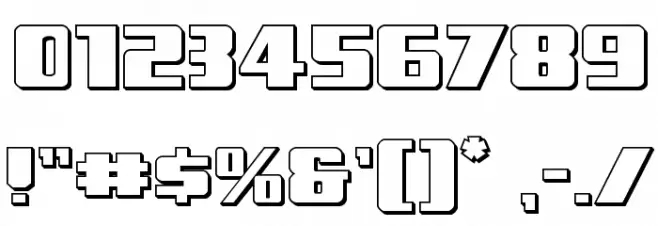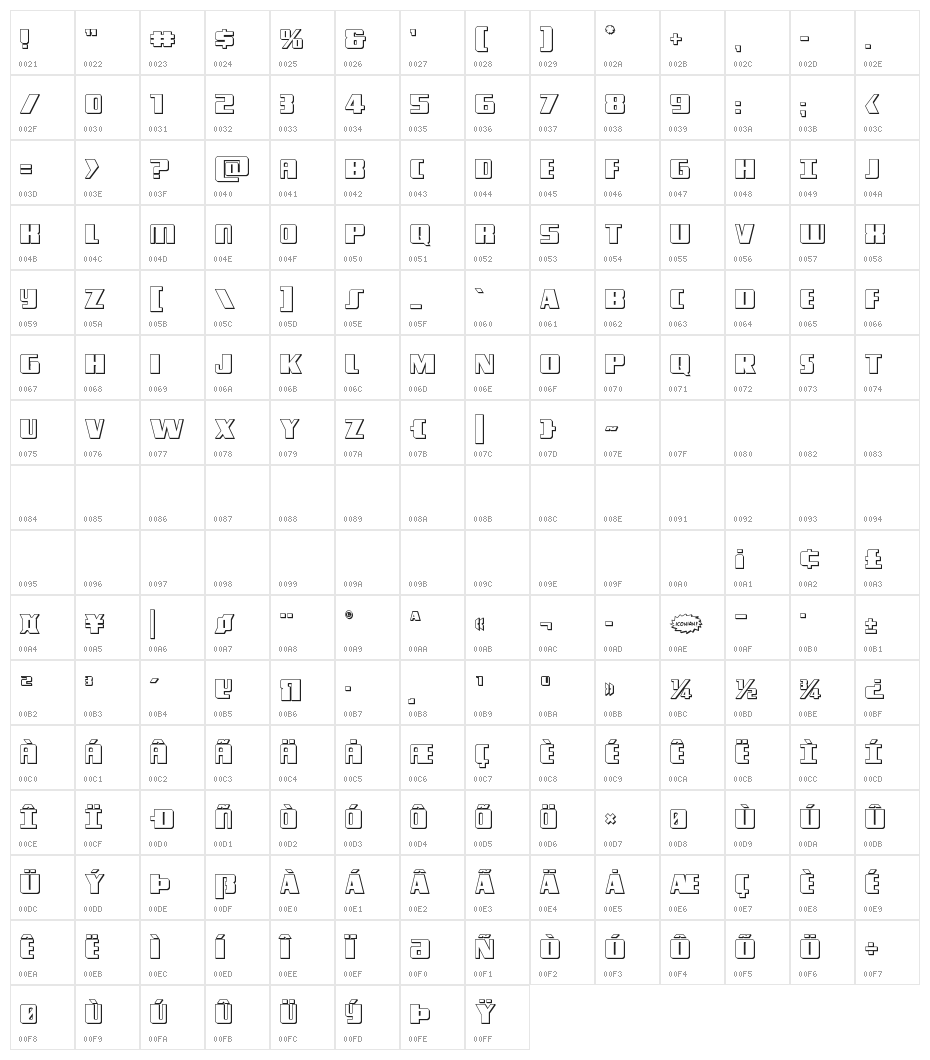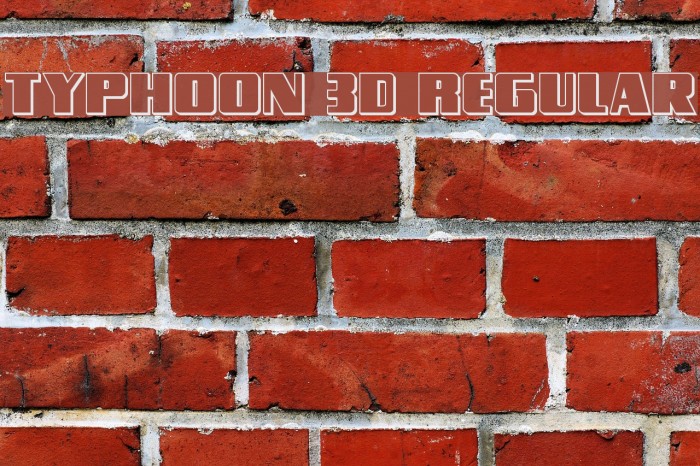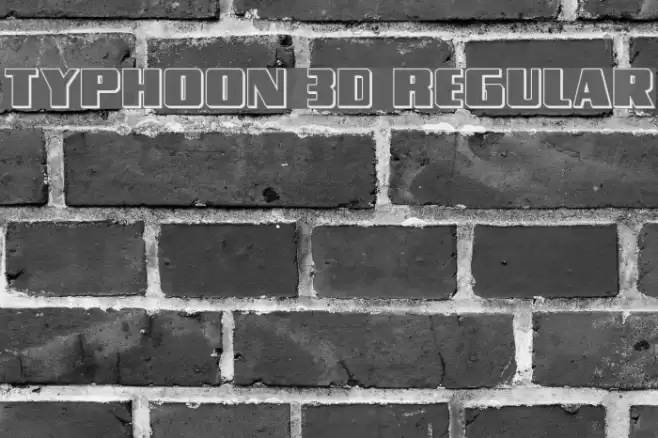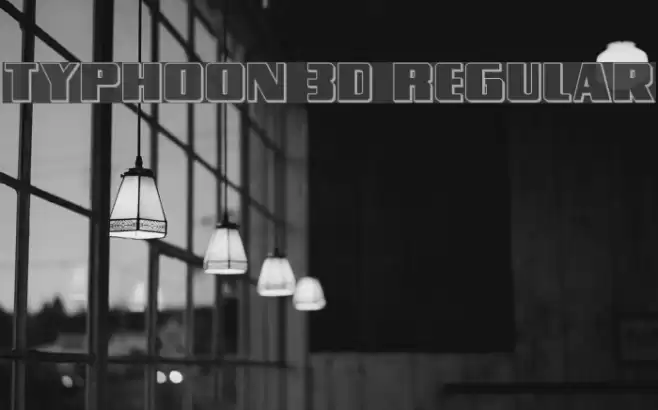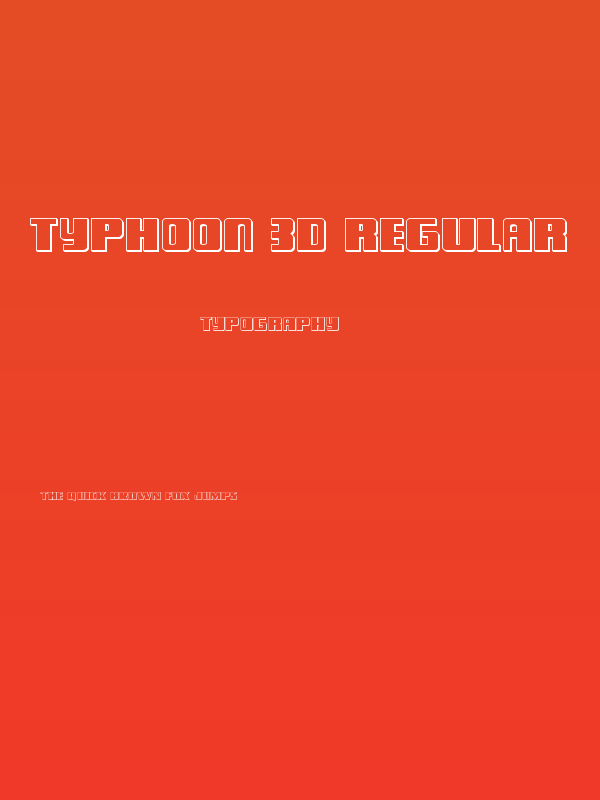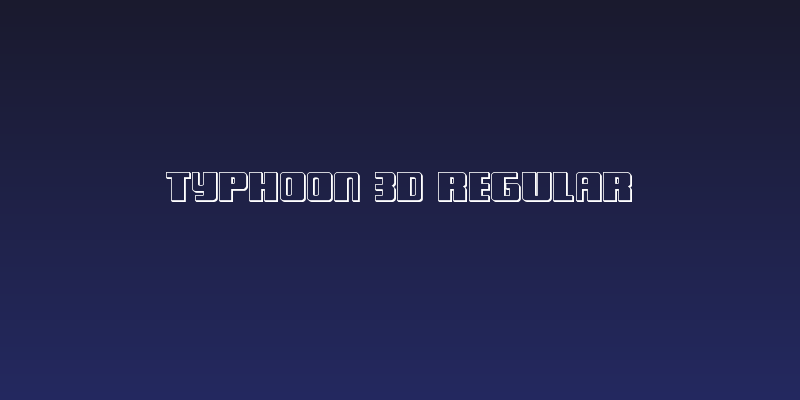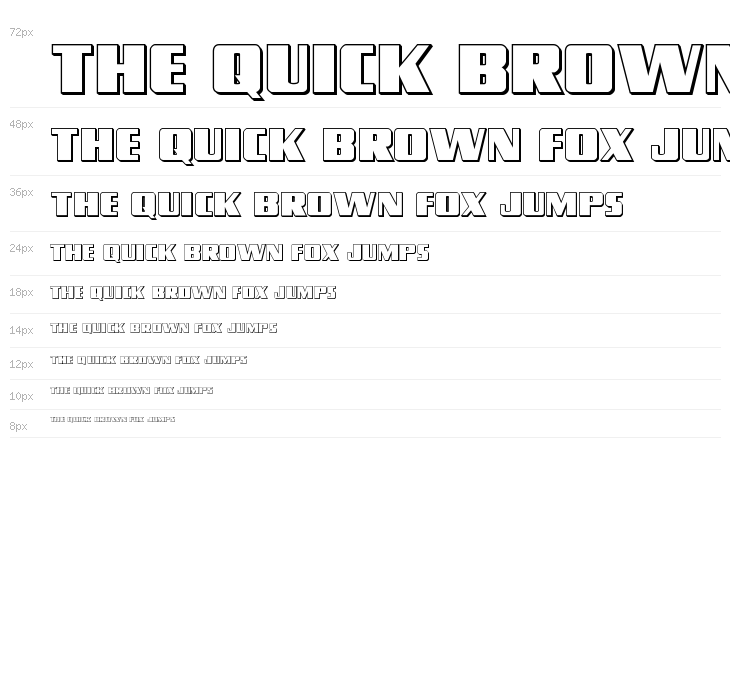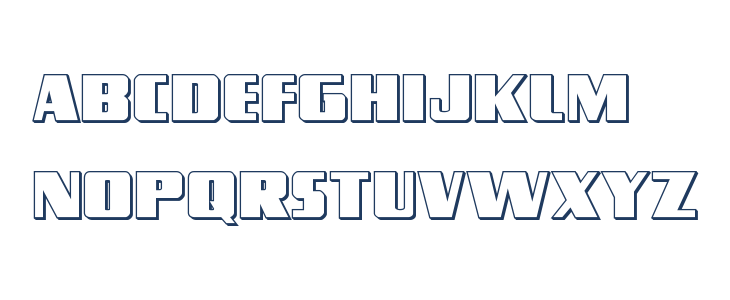
Typhoon 3D Regular Font
Typhoon 3D Regular Description
This font features a bold, three-dimensional design with a distinct outline that gives each character a blocky, futuristic appearance. The uppercase letters are uniform in height and width, creating a cohesive and structured look. The numbers and special characters maintain the same bold outline, ensuring consistency across all glyphs. The font's geometric style is eye-catching and modern, making it suitable for projects that require a strong visual impact. Its unique 3D effect adds depth and dimension, making it stand out in any design.